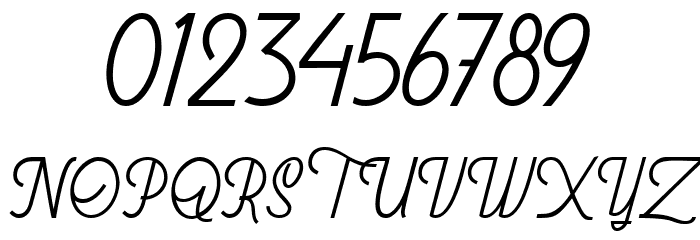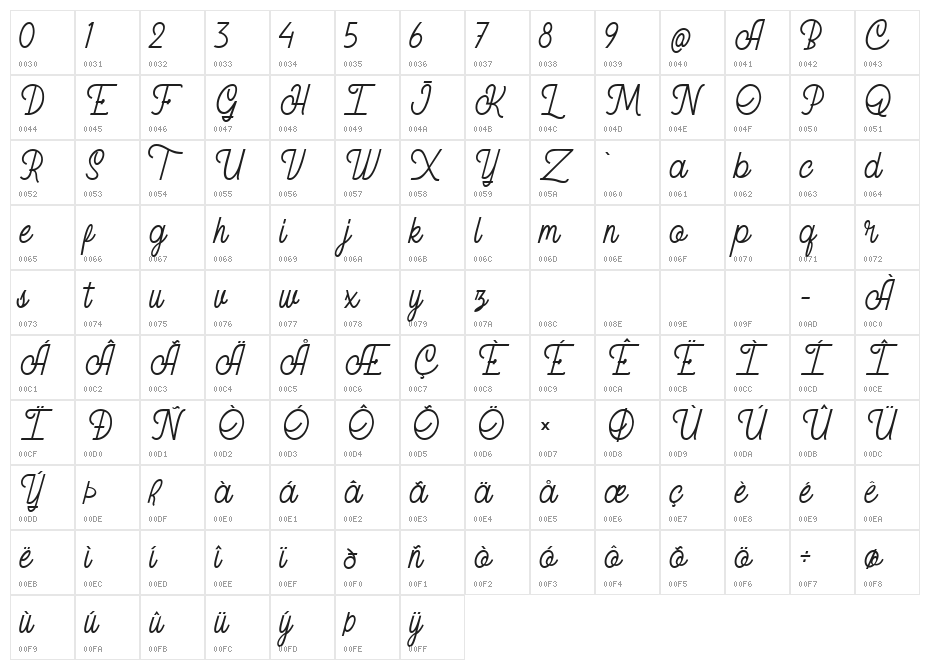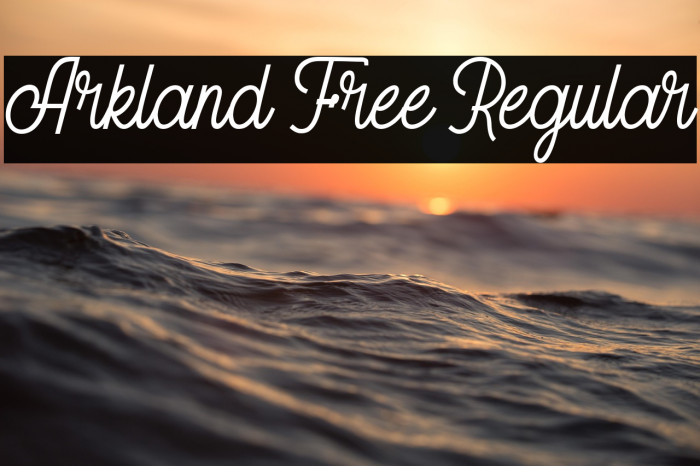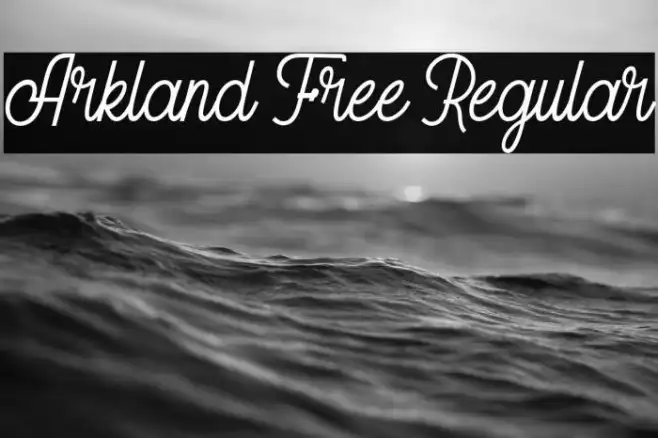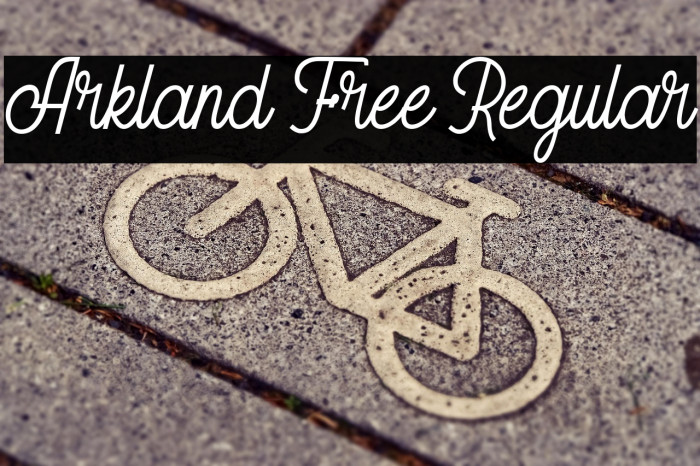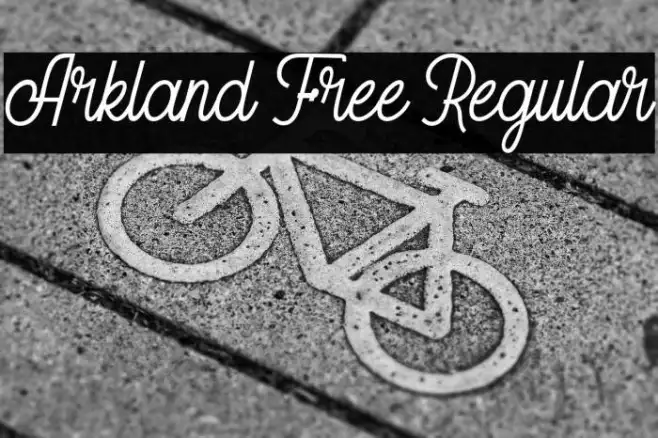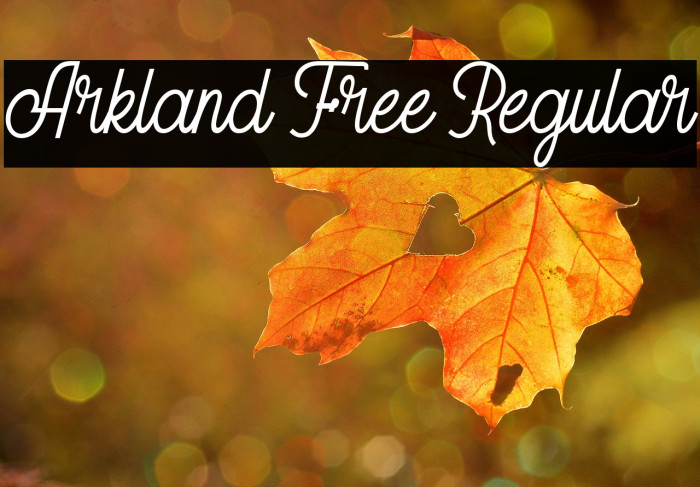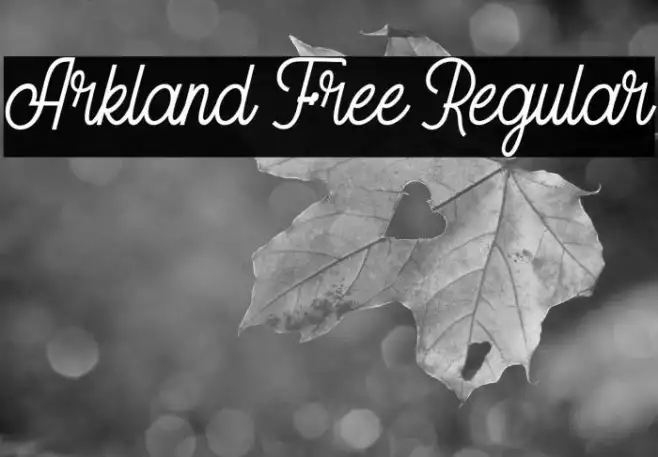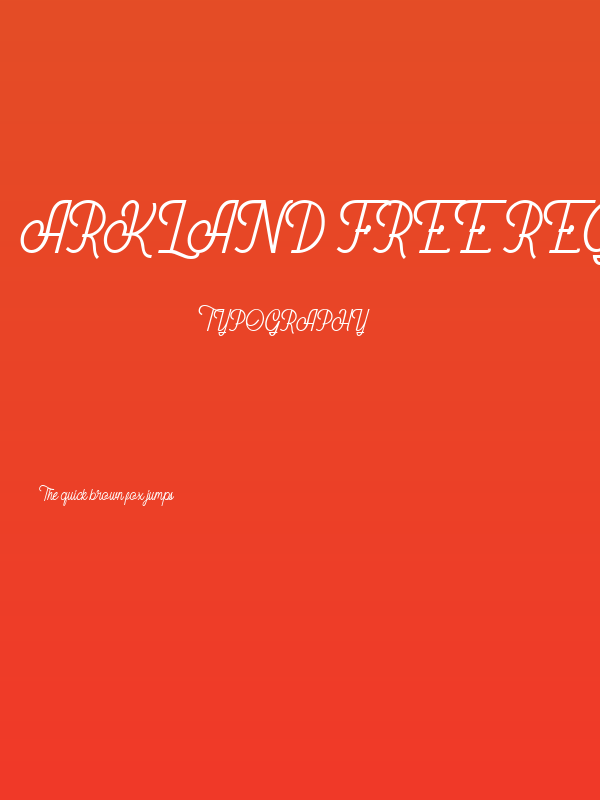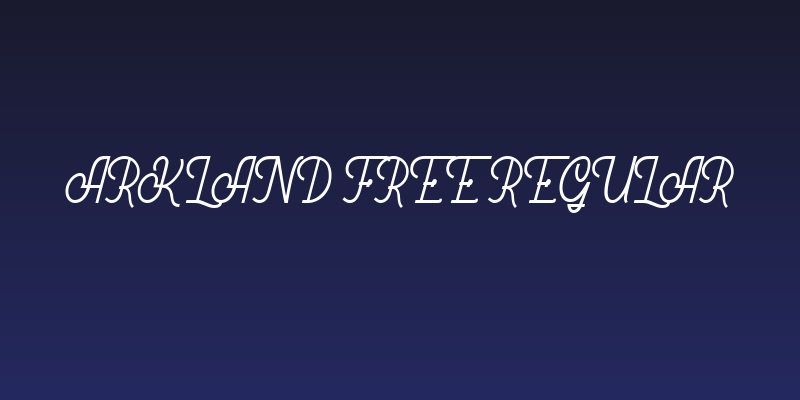
Arkland Free Regular Font
Arkland Free Regular Description
This font features a stylish and elegant script design with a flowing, cursive style. The uppercase letters are slightly more formal with intricate loops and swirls, while the lowercase letters maintain a consistent, smooth flow. The numerals are clear and legible, complementing the overall aesthetic. This font is perfect for adding a touch of sophistication and elegance to any project, with its graceful curves and balanced proportions.